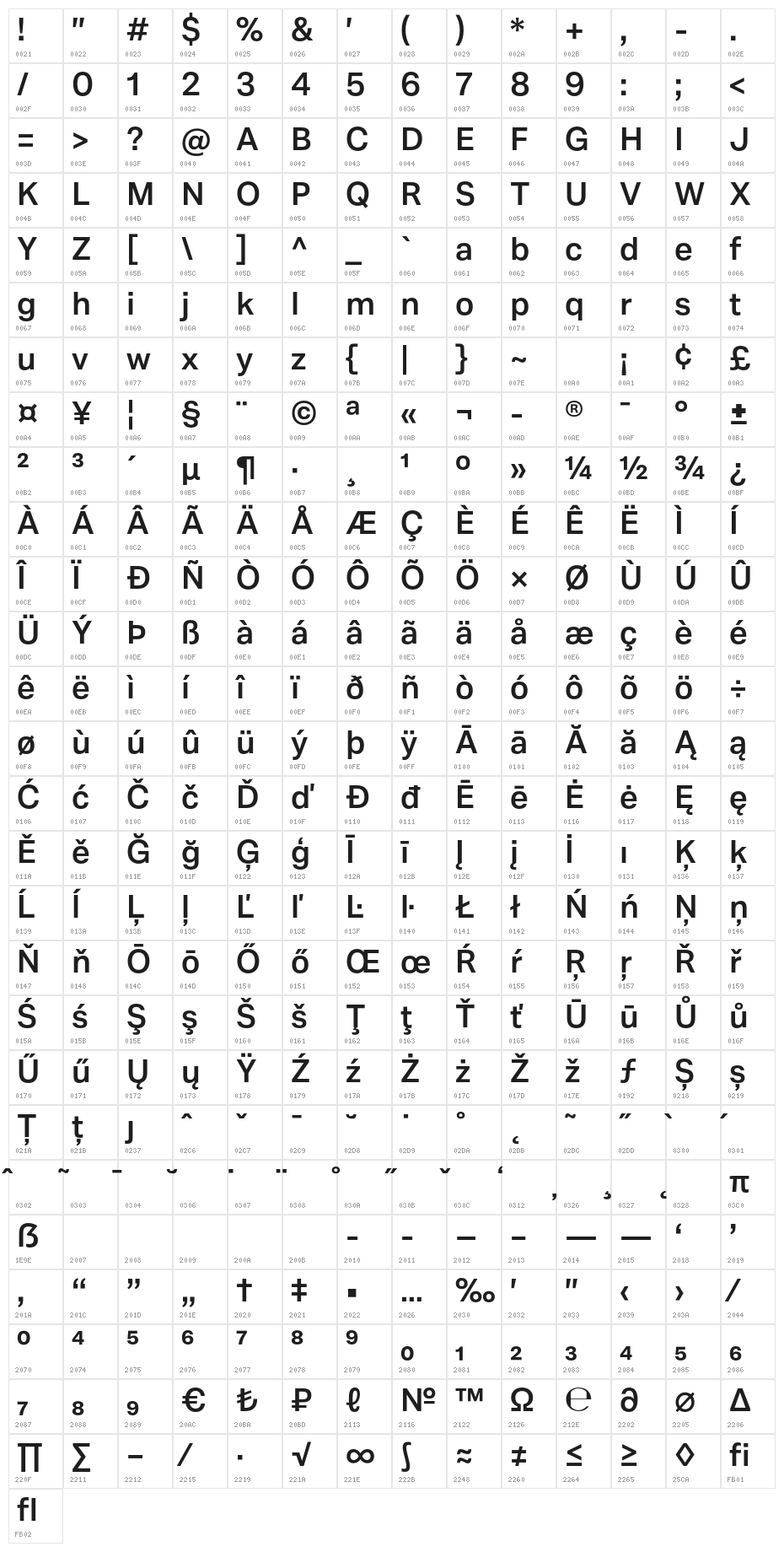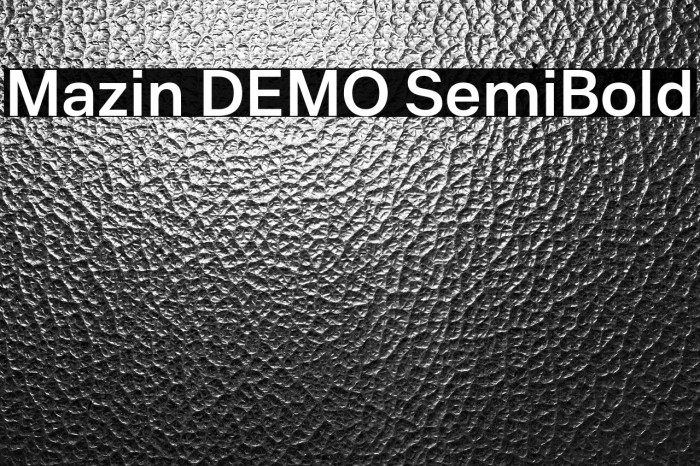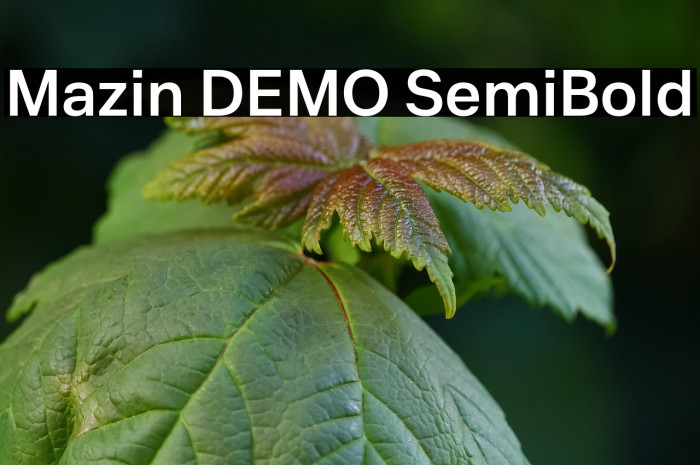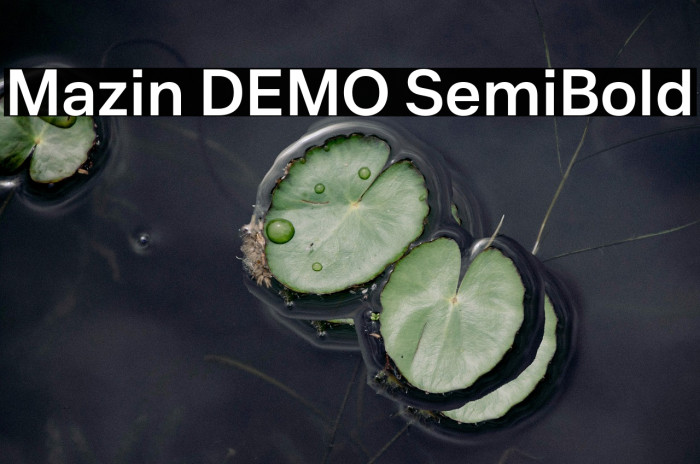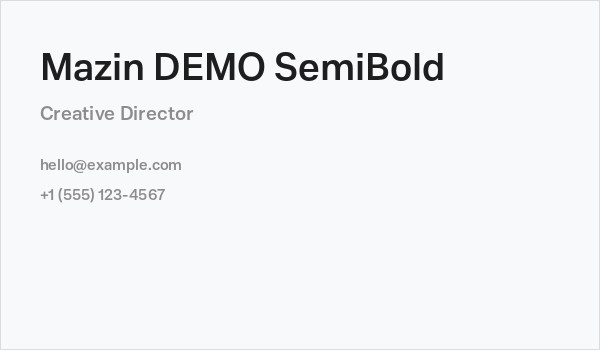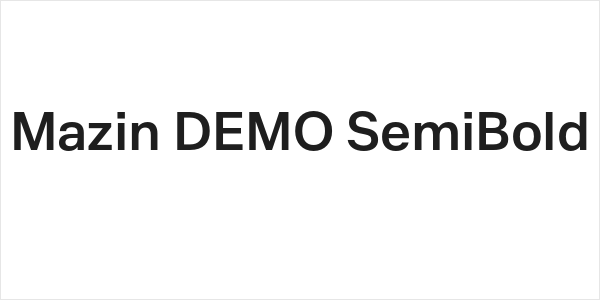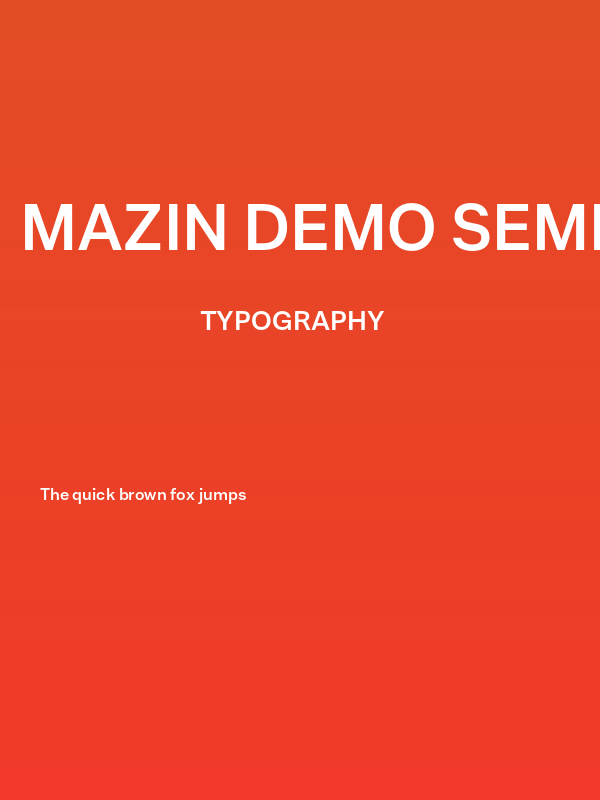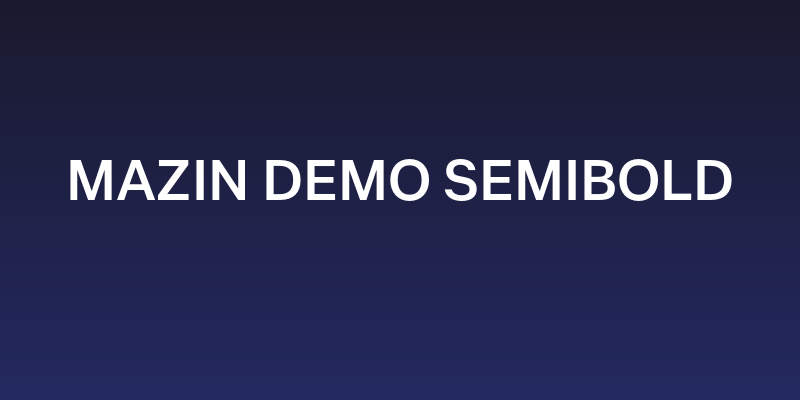
Mazin DEMO SemiBold Font
Mazin DEMO SemiBold Description
This font features a clean and modern sans-serif design with a semi-bold weight, offering a strong yet approachable appearance. The characters are well-proportioned with a consistent stroke width, providing excellent readability across various sizes. The uppercase and lowercase letters maintain a harmonious balance, while the numerals are clear and distinct. Special characters are included, enhancing its versatility for different design needs. The overall style is contemporary, making it suitable for a wide range of applications.
| Proposed Projects | Ideal for branding, advertising, web design, and editorial projects where clarity and modernity are key. |